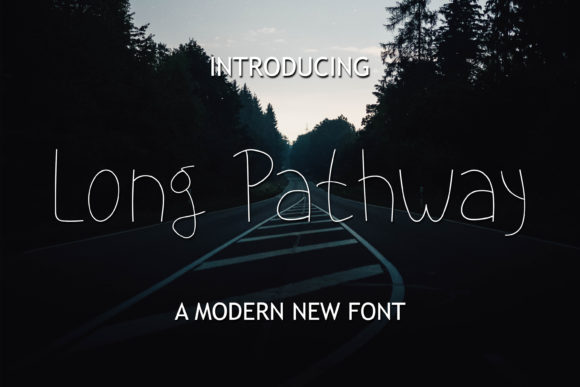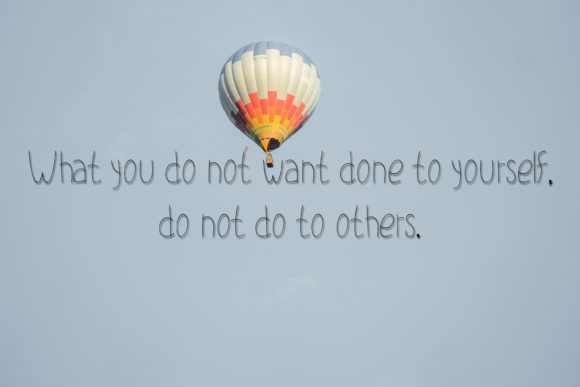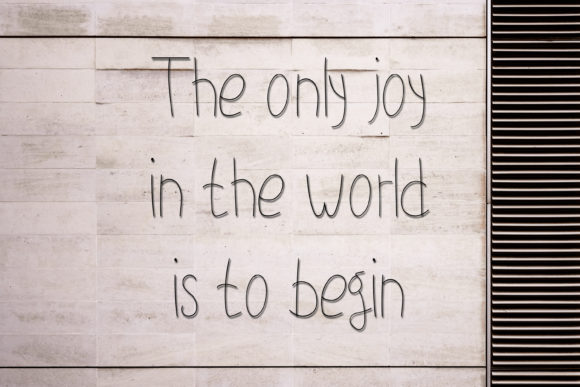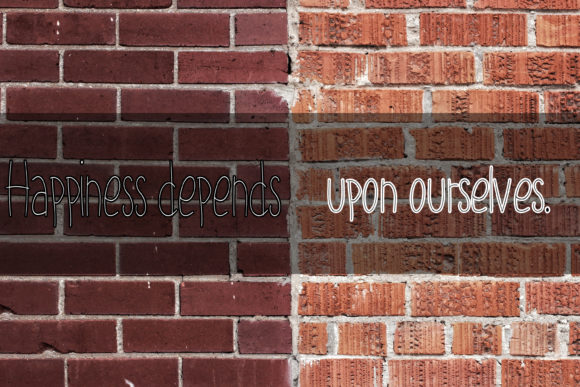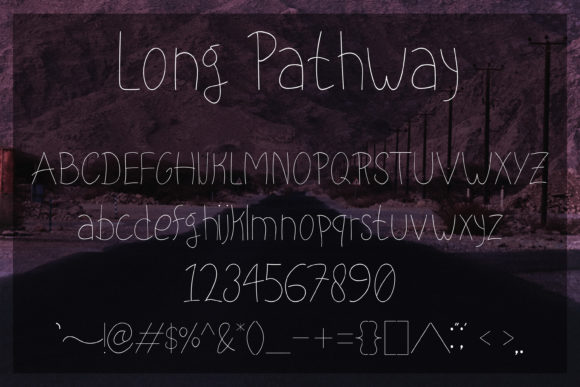
Long Pathway Font
About Long Pathway Font
Long Pathway is a clean, simple and thin lettered handwritten font. It can easily be matched to an incredibly large set of projects, so add it to your creative ideas and notice how it makes them stand out!